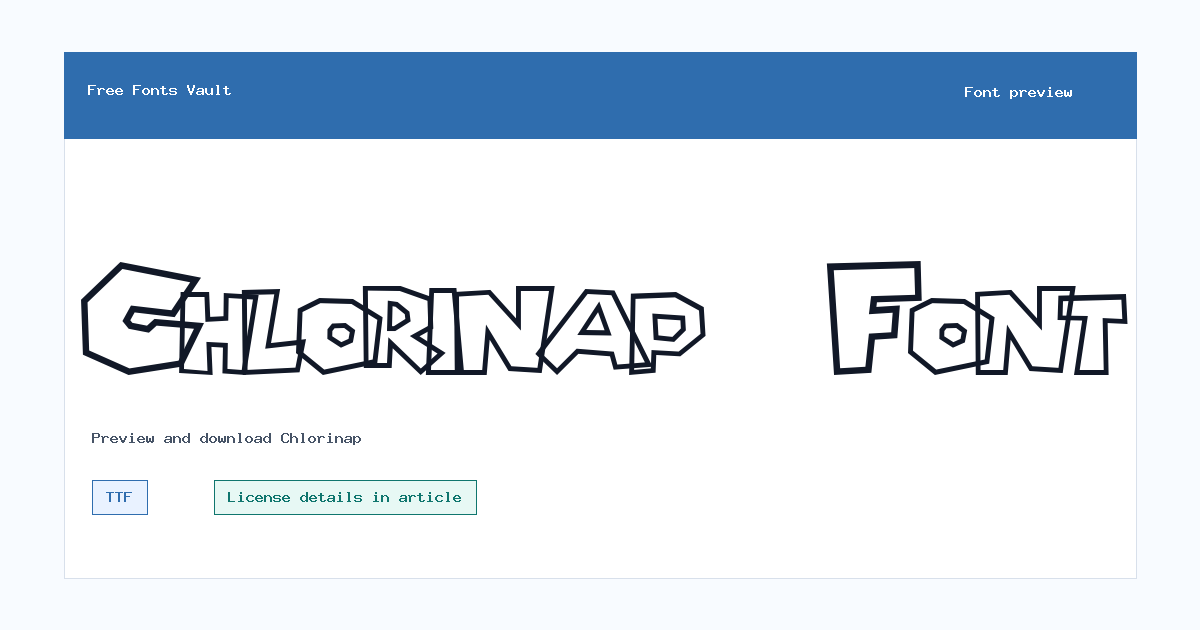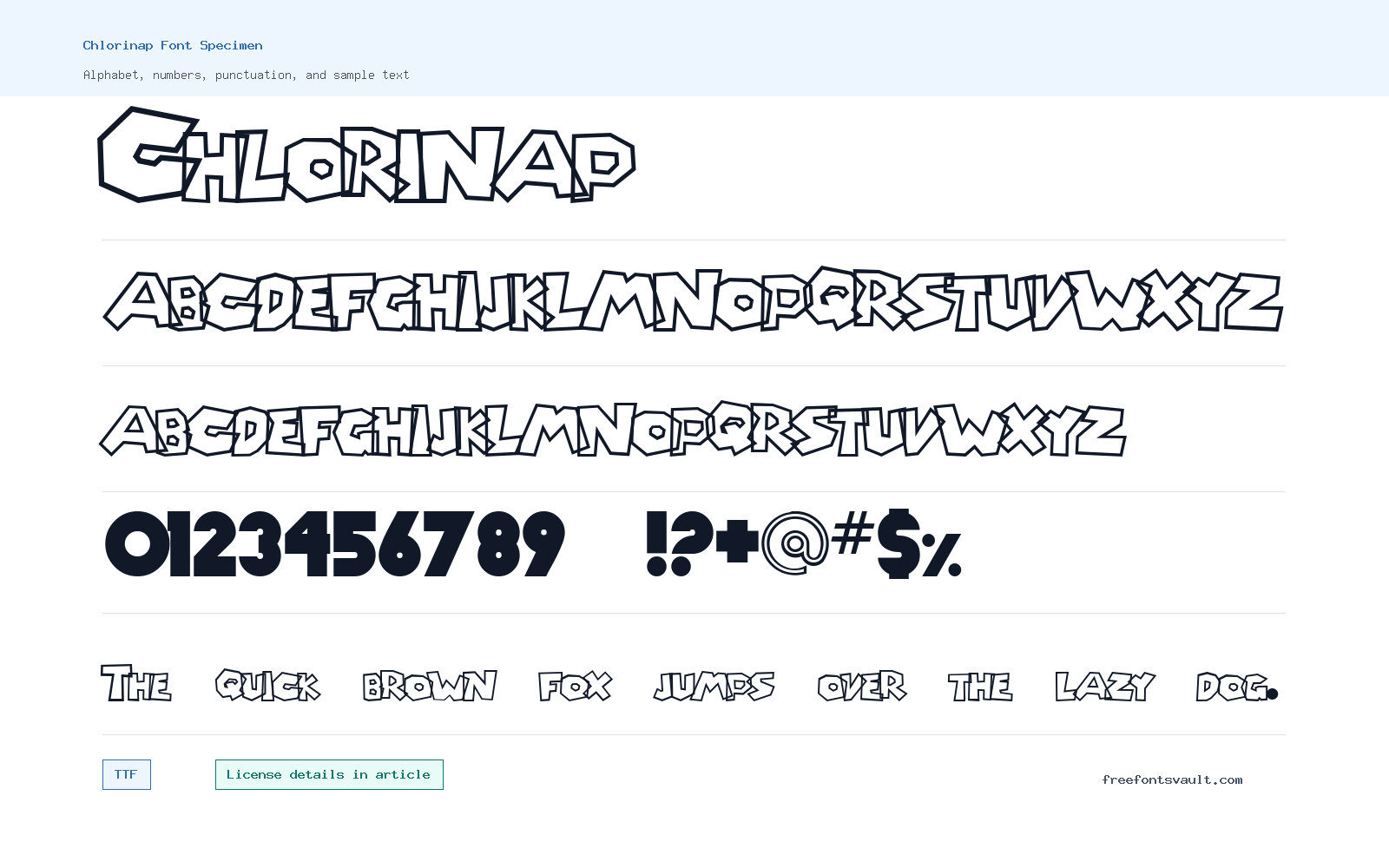
Chlorinap
Chlorinap font.
Chlorinap is a bold outlined display font with chunky, uneven letterforms and a comic-style feel. It works best when the text is short, large, and meant to stand out.
About Chlorinap
Chlorinap uses heavy block shapes with sharp, irregular edges and an open outline style. The letters feel hand-cut rather than polished, which gives headings a playful and slightly rough look. Its uppercase alphabet is especially strong for display use, while the lowercase set keeps the same angular personality.
Use Chlorinap for short words, poster titles, sticker-style graphics, thumbnails, game-inspired captions, or informal branding tests. It is not a good choice for long paragraphs because the outlined shapes and jagged details slow down reading at small sizes. For cleaner layouts, pair it with a plain sans serif for body text and keep Chlorinap for the main title or accent line.
Chlorinap is easier to use when the layout gives the letters space. Start with one short phrase, test it at the final size, and avoid placing too many other decorative elements around it. If the word shape feels busy, reduce the amount of text before reducing the font size too far.
For web graphics, compare a clean background with a textured or illustrated one. A decorative font can look strong in the preview but become harder to read once it sits over a detailed image, so check contrast before exporting.
- Posters, flyers, thumbnails, and title graphics
- Playful logos, stickers, packaging mockups, and short social media text
Preview Chlorinap with the exact words you plan to use, especially if the design needs numbers or punctuation. Keep the font large, add generous spacing when needed, and avoid using it for dense text. Use Chlorinap as the attention-grabbing part of the design, then keep supporting text in a simpler font. Test punctuation and numbers if they appear in your final headline.
What kind of font is Chlorinap?
Chlorinap is a display font with bold outlined, angular letters. It is made for eye-catching short text rather than long reading.
Is Chlorinap good for body text?
No. Its outlined shapes and rough edges are better suited to large headlines, logos, and short decorative text.